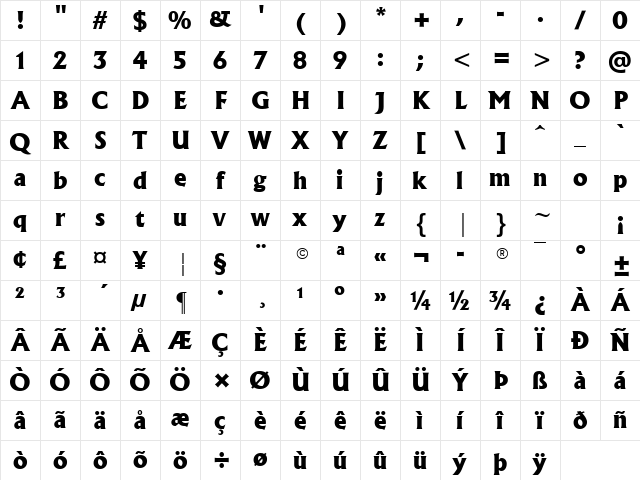
Albertus Extra Bold Regular
Complete Albertus Extra Bold Regular glyph index. Displaying only characters natively supported by Albertus Extra Bold Regular font.
Design Context for Albertus Extra Bold
Albertus Extra Bold is a composed and adaptable typeface that performs quietly and consistently across a wide range of design contexts. Its bold stroke weight gives it real presence on the page.